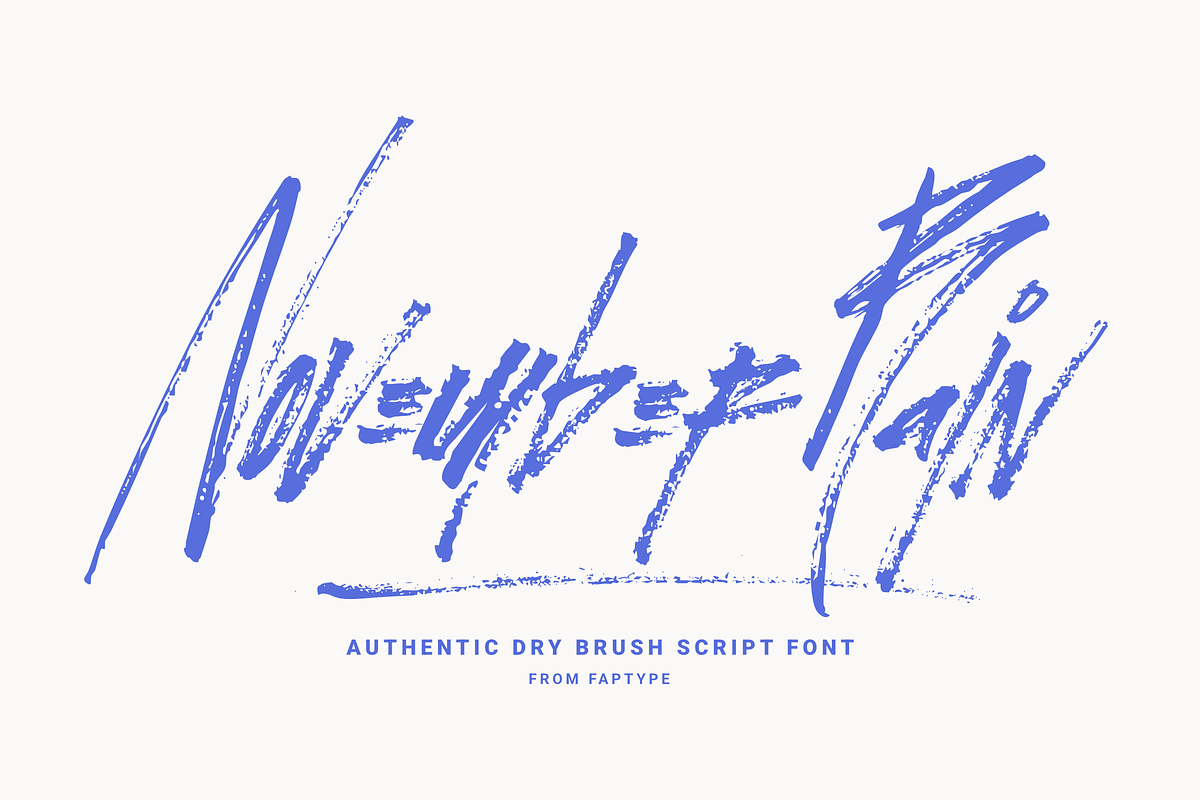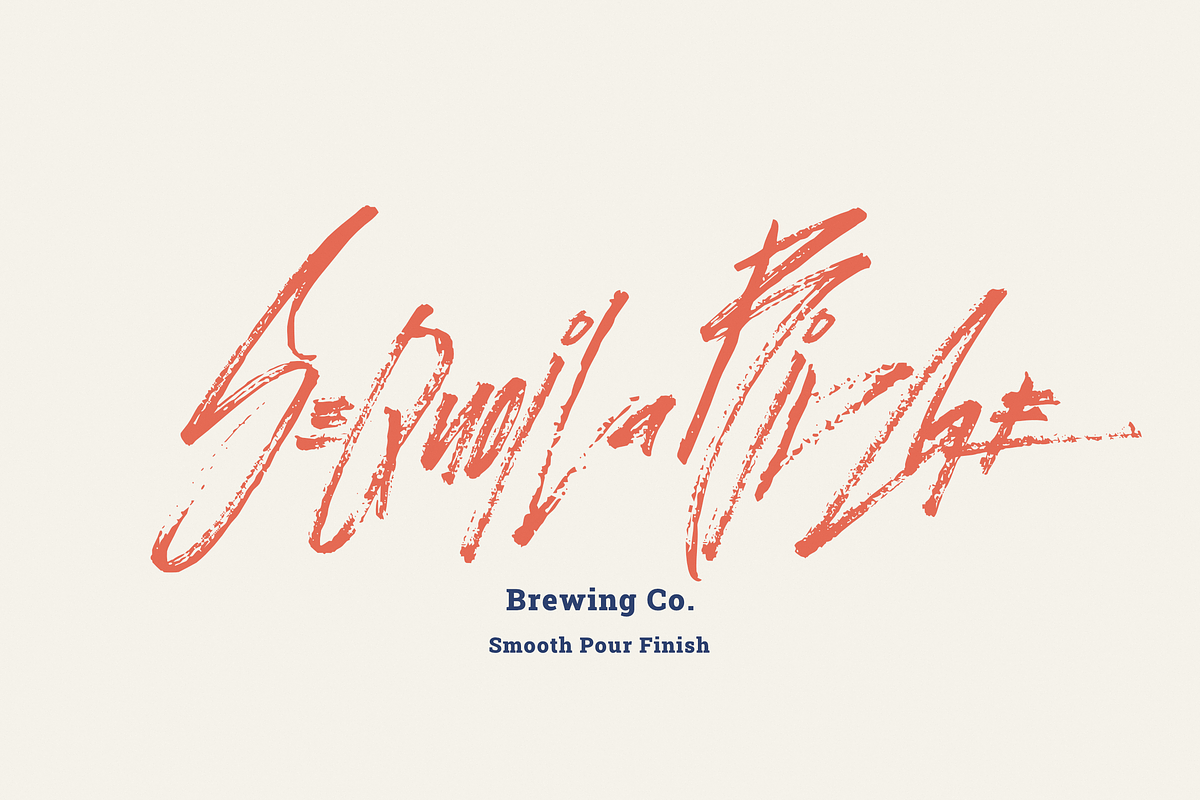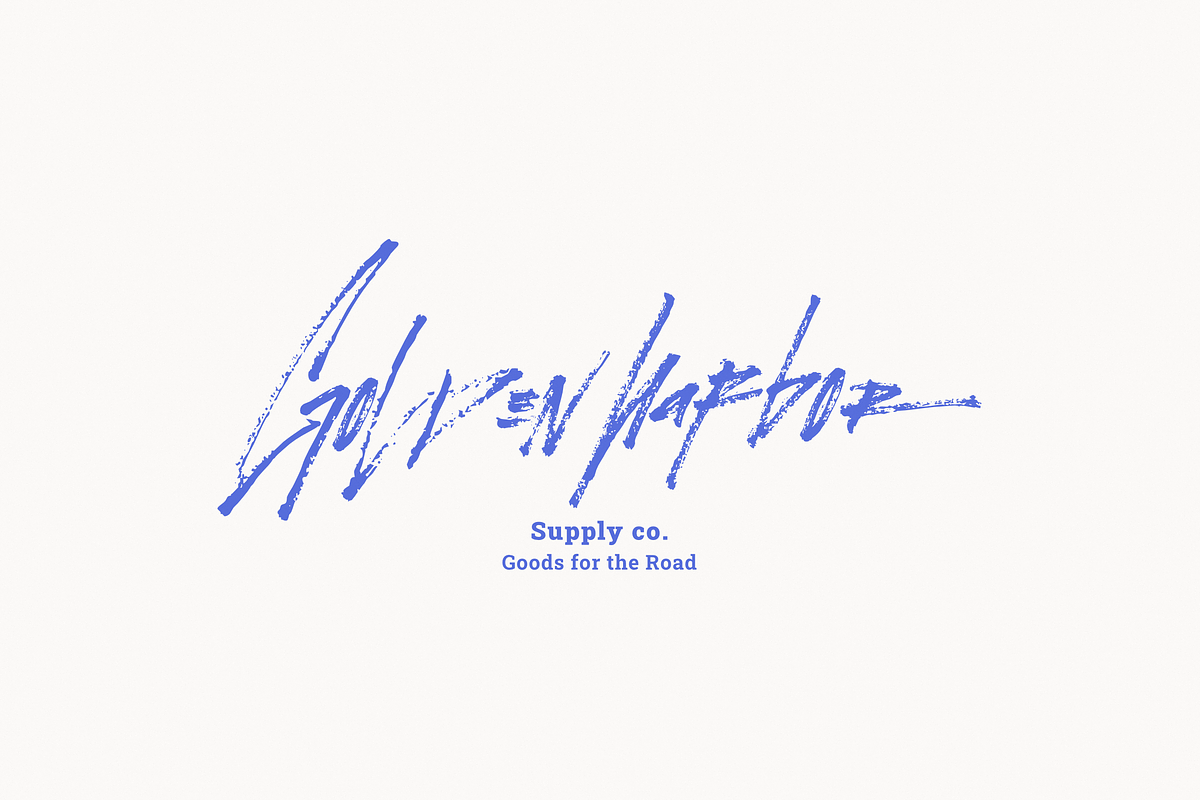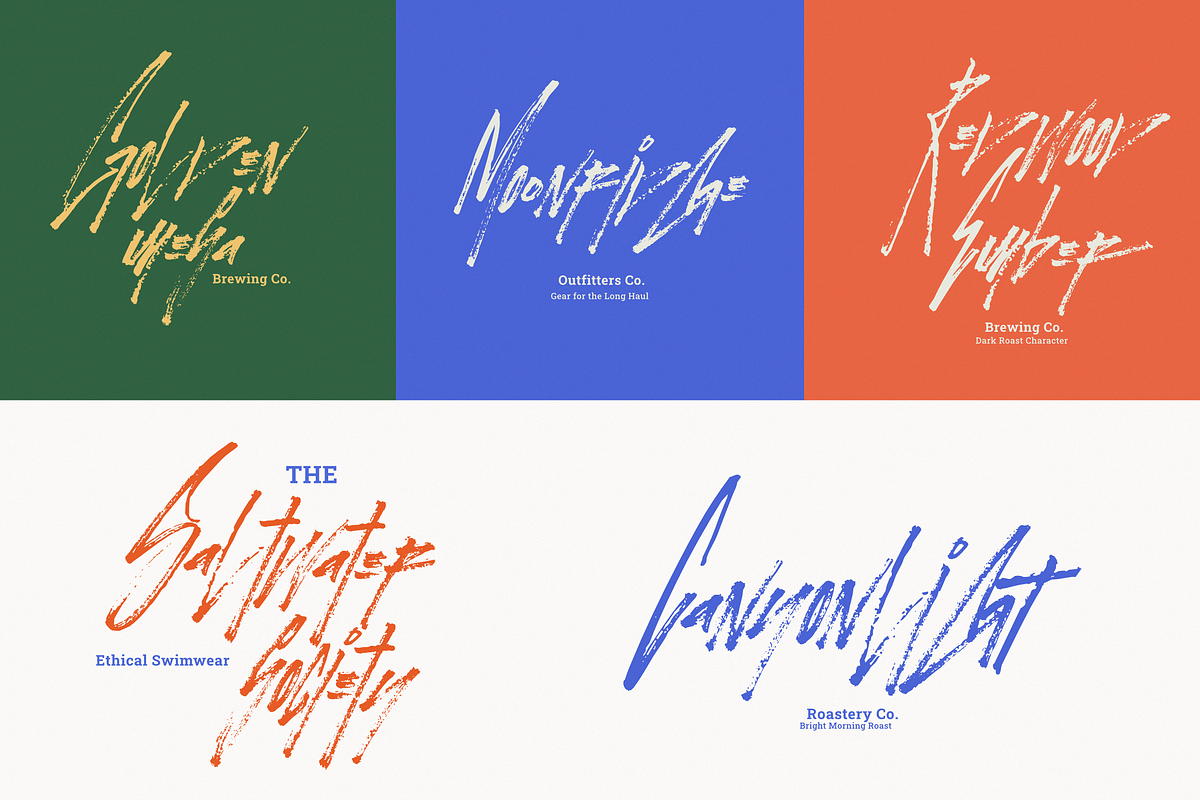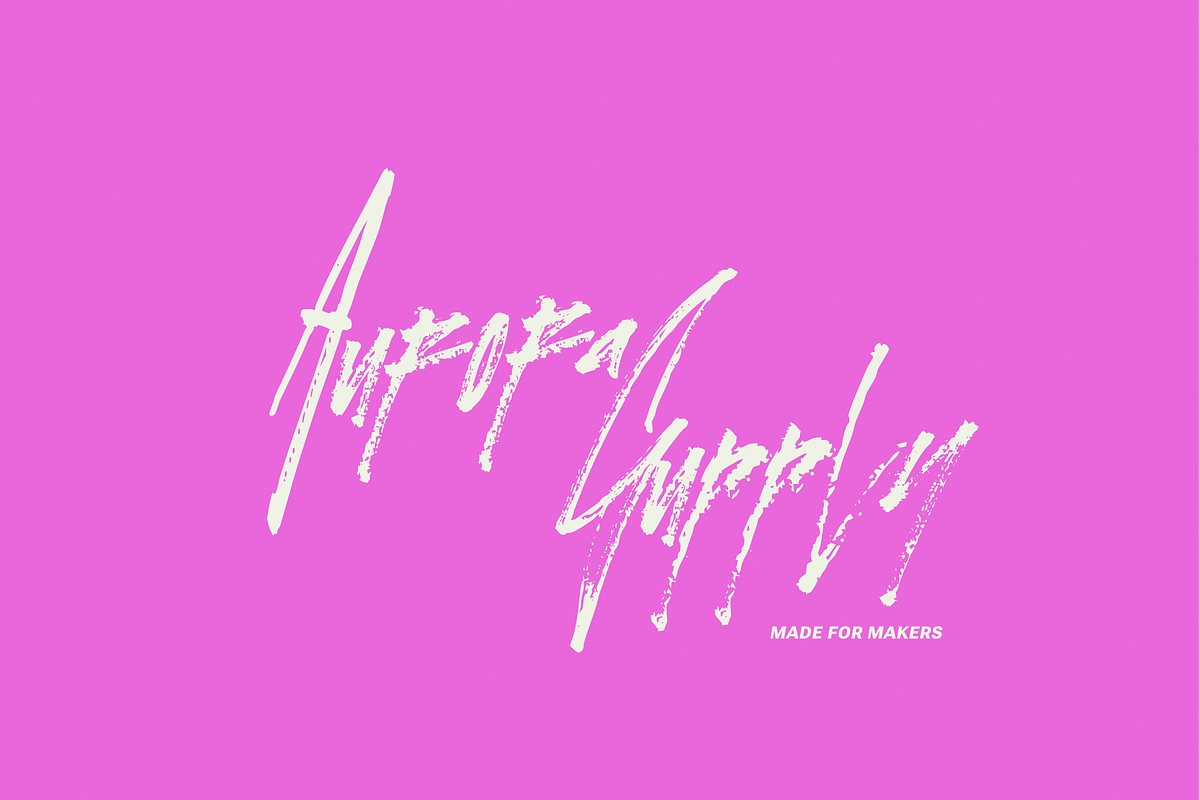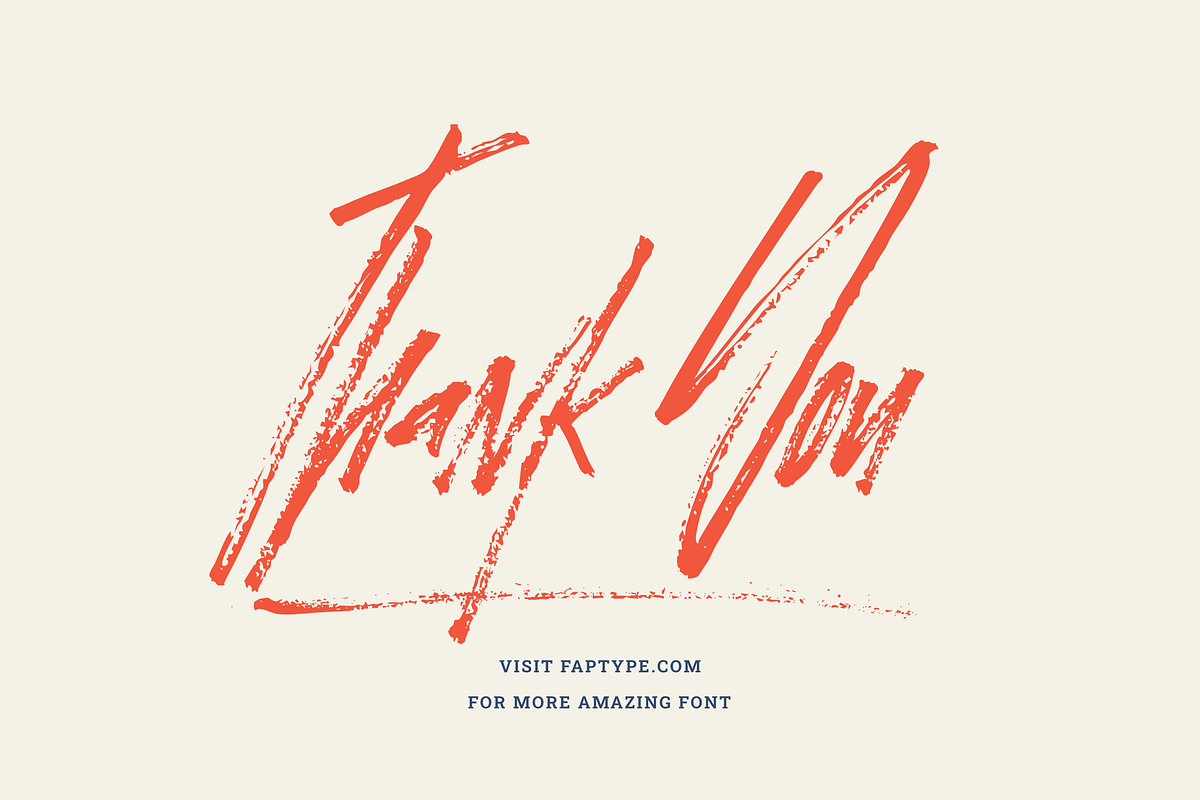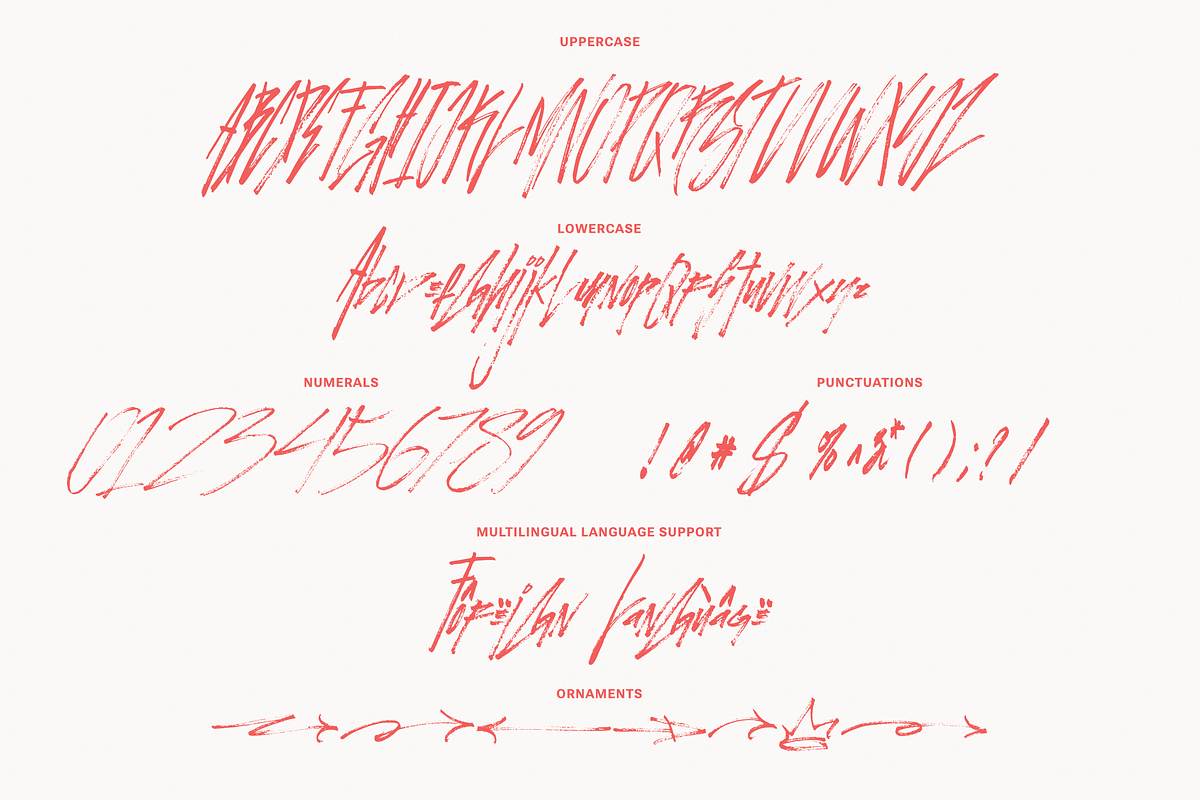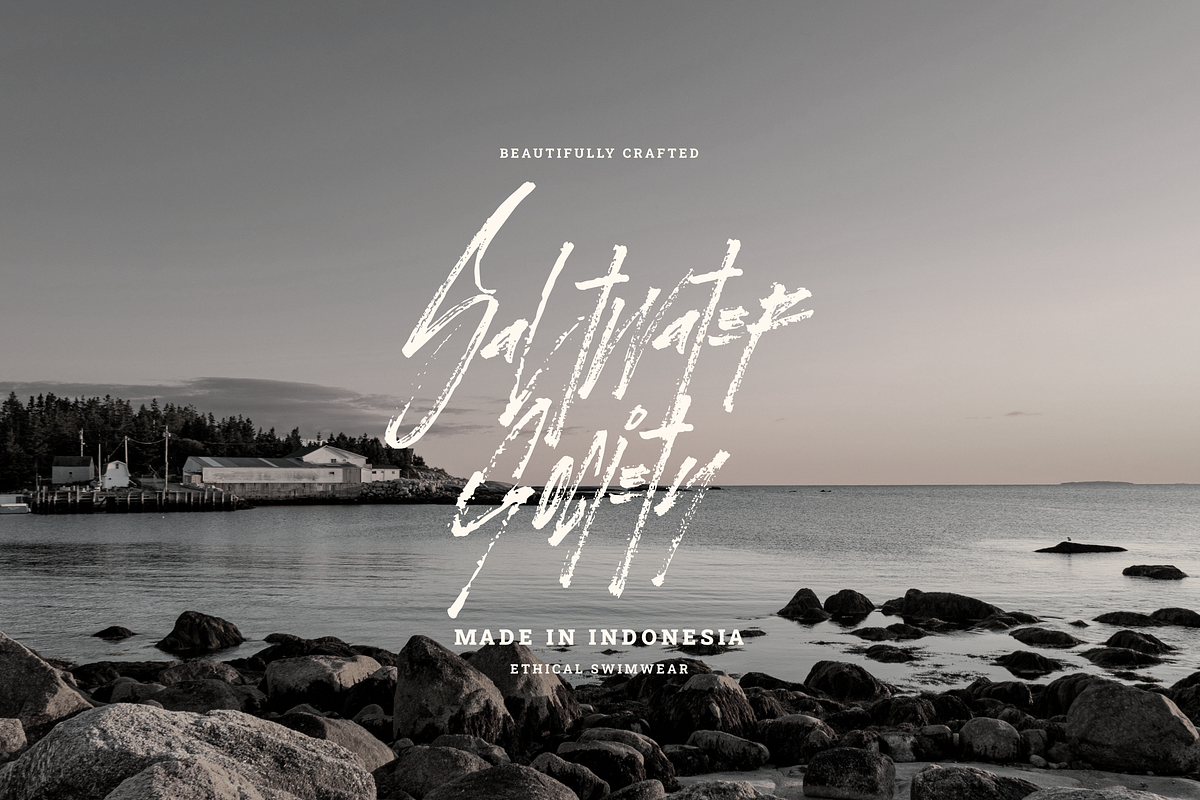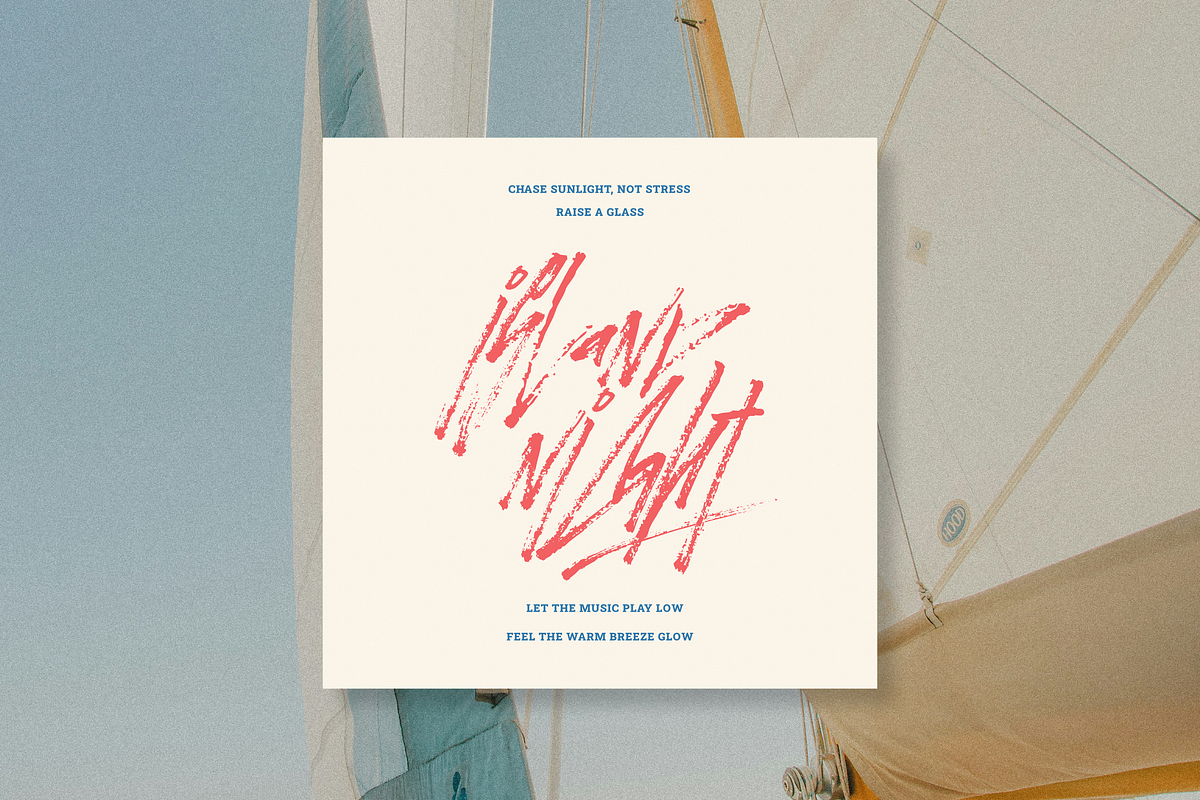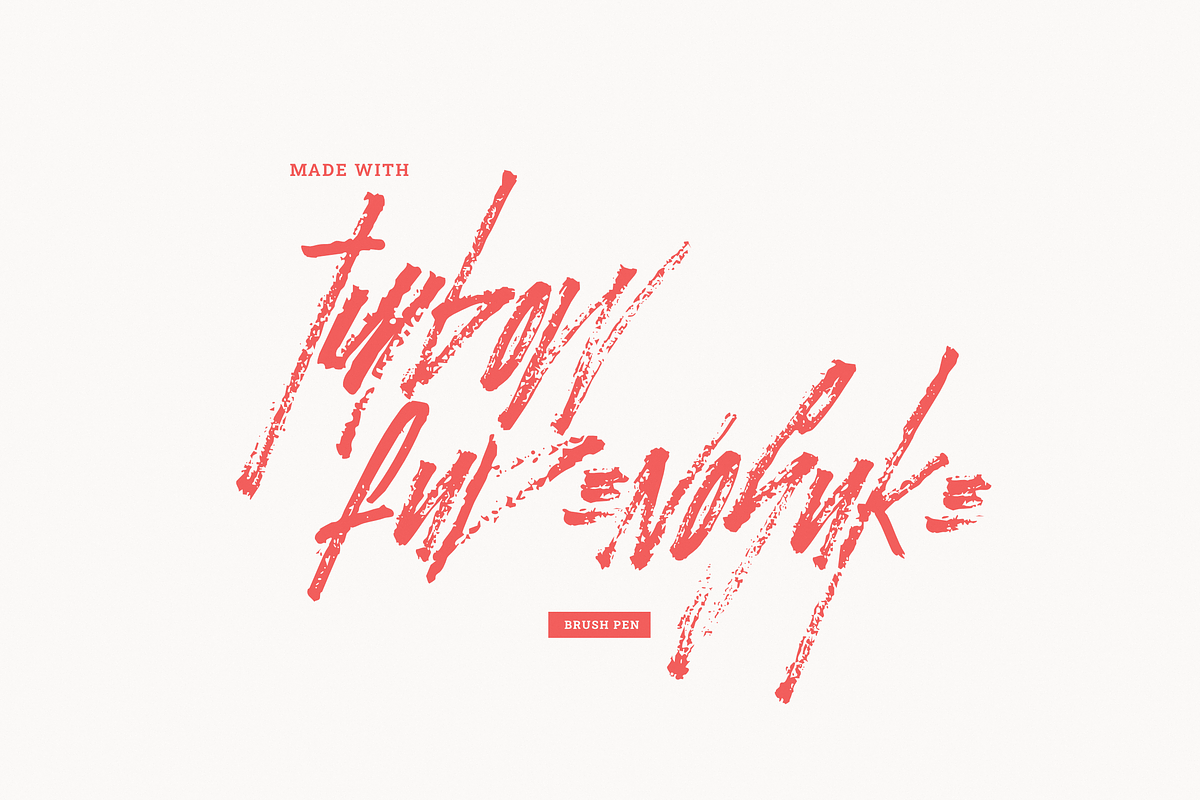
November Rain | Authentic Dry Brush
November Rain is an expressive dry brush script font, carefully handcrafted using a Tombow Fudenosuke brush pen to capture real ink texture, pressure, and natural stroke movement. Every letter was written manually, preserving the raw energy and organic rhythm that only true hand lettering can deliver.
This font brings a bold, emotional, and gritty brush feel—perfect for designs that need personality, attitude, and authentic handmade character.
Unlike digital brush simulations, November Rain carries real bristle texture, ink breaks, and natural inconsistencies from the pen, making your typography feel alive and dynamic.
What makes November Rain special?
Handwritten manually using Tombow Fudenosuke
Real dry brush texture with natural ink pressure
Strong personality with expressive strokes
Perfect balance between readable script and wild brush energy
Ideal for bold, artistic, and attention-grabbing typography
Perfect for
November Rain works beautifully for:
Music posters & album covers
Streetwear & apparel branding
Social media quotes & thumbnails
Logo design with raw personality
Packaging design
YouTube thumbnails
Poster typography
Merchandise design
Urban, grash, and expressive branding
Authentic Brush Character
Because this font was created with a real brush pen, you’ll notice:
Ink texture variations
Rough edges and dry strokes
Natural pressure transitions
Organic brush rhythm
These details give your design a handcrafted aesthetic that cannot be replicated by vector-generated brush fonts.
Features of November Rain Font
Uppercase & lowercase letters
PUA-encoded characters
OpenType features
307+ glyphs
November Rain swashes included